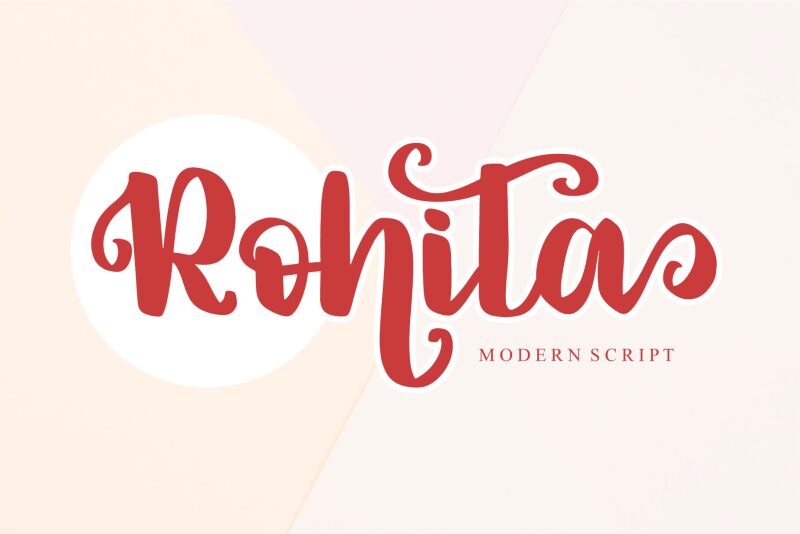
Rohita font by Letterafa Studio is a brush bold typeface that brings an organic, romantic, and expressive touch to all of your designs. Its casual elegance cannot be missed, with a natural flow that’s enhanced when applied to branding materials, brands, social media platforms, advertisements, etc.
Use it for romantic novels and movie posters or visual presentations used on screens or printed publications. Design music album covers with those of Adele coming to mind due to their simplicity yet beauty. Give each letter its own vibrancy when used in logotypes or titles where the font is more noticeable or realize streetwear labels that stand out with style.